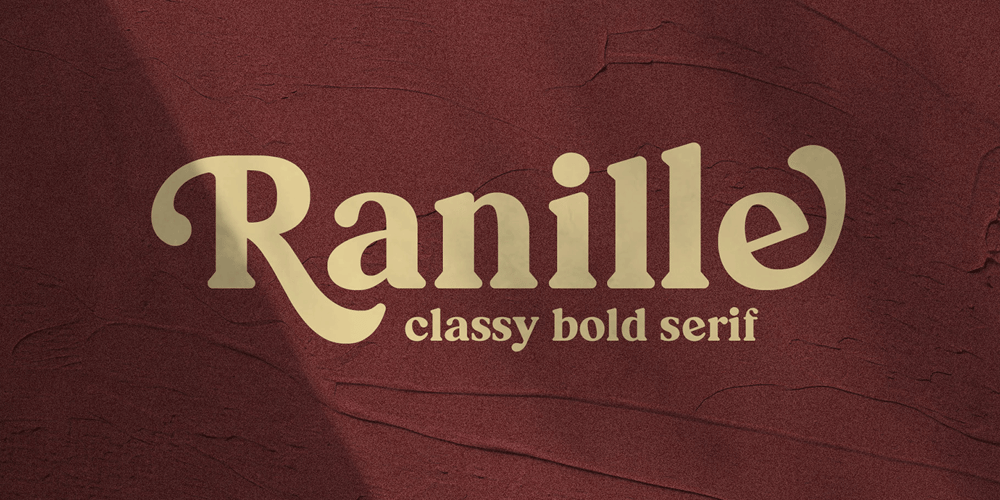
Ranille Font Family was designed by Ahmad Ramzi Fahruddin and published by Arterfak Project. Ranille contains 1 styles and family package options. Ranille is a modern, classy, bold serif and display font. It includes a great number of of alternates and ligatures. Ranille is inspired by retro curves style from the 50-60s era and brings it into modern design with bold weight. Ranille comes with over 200+ alternative characters (PUA Encoded) that give you a wide range of typographic design results. Ranille is a versatile font that ready to make your designs more stand out such as posters, magazines, branding, logos, label, merchandise, presentation, advertising, cards, quotes and so much more!Check out Novante which is a great pair for Ranille.